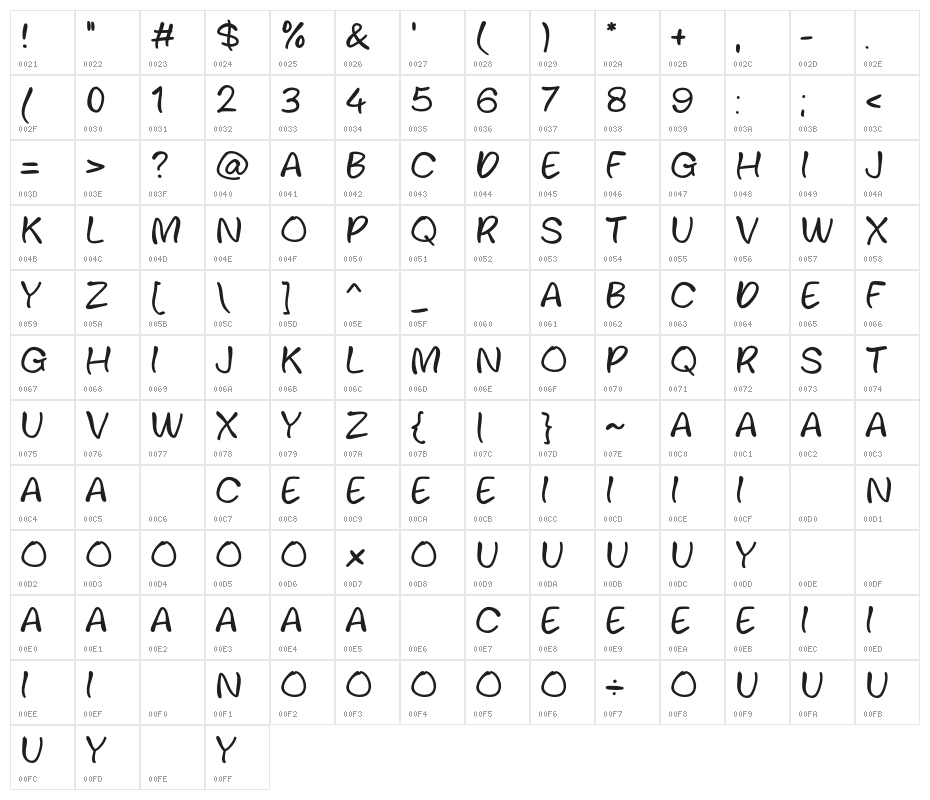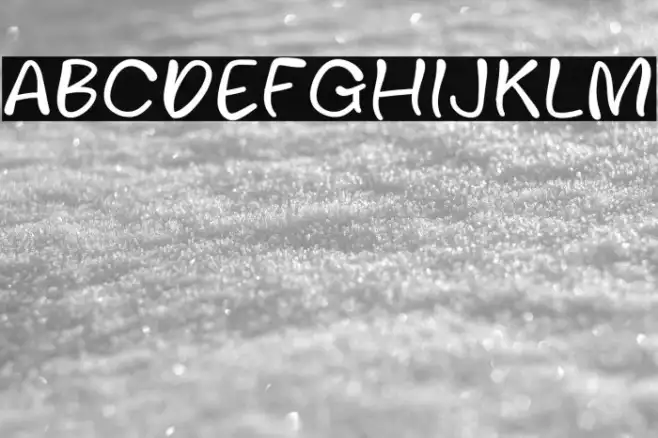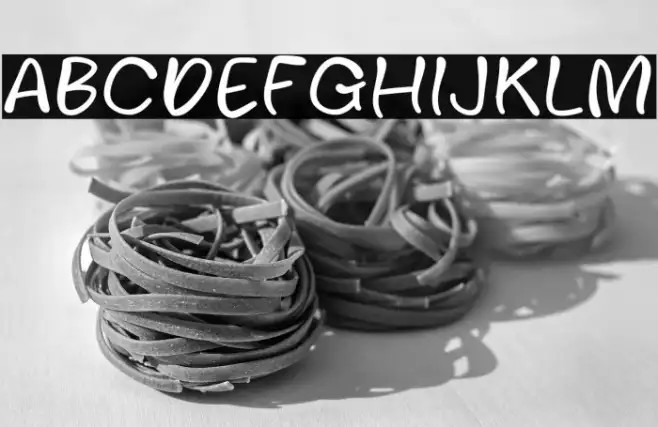
Liquid Juice Font
Liquid Juice Description
This font features a playful and energetic style, characterized by its fluid and dynamic strokes that mimic a handwritten script. The letters have a casual and informal appearance, with rounded edges and a consistent flow that suggests movement. The uppercase and lowercase letters maintain a cohesive look, while the numbers and special characters integrate seamlessly with the overall design. The font's lively and approachable nature makes it suitable for projects that require a personal touch or a sense of fun and creativity.
| Overall Style | Casual and Energetic |
| Use Case | Logos, Invitations, Greeting Cards |
| Proposed Projects | Ideal for greeting cards, children's books, playful branding, and informal invitations. |